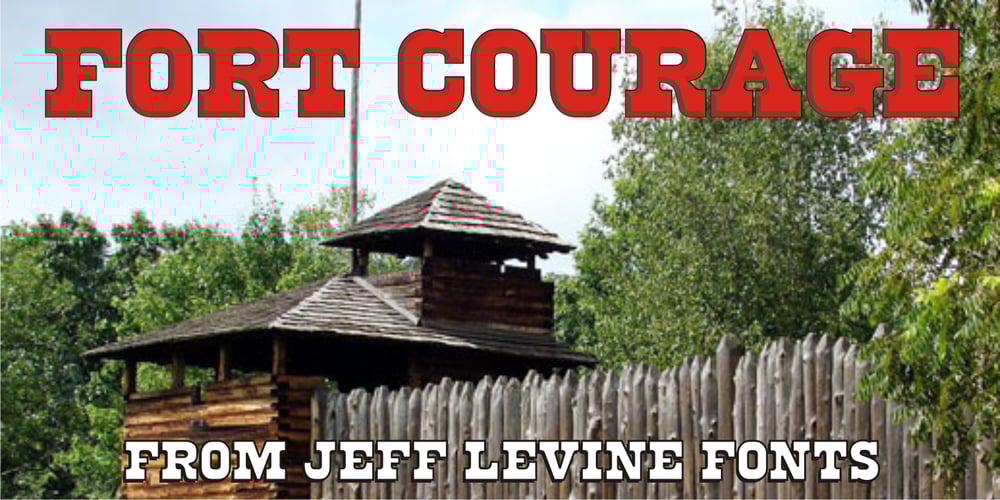
Fort Courage JNL Font Family was designed by Jeff Levine and published by Jeff Levine. Fort Courage JNL contains 1 styles and family package options. Fort Courage JNL is a bold slab serif wood type in the French Clarendon genre, taking its name as a tongue-in-cheek reference to the cavalry fort populated by a number of post-Civil War misfits in the 1960s television comedy “F Troop”.